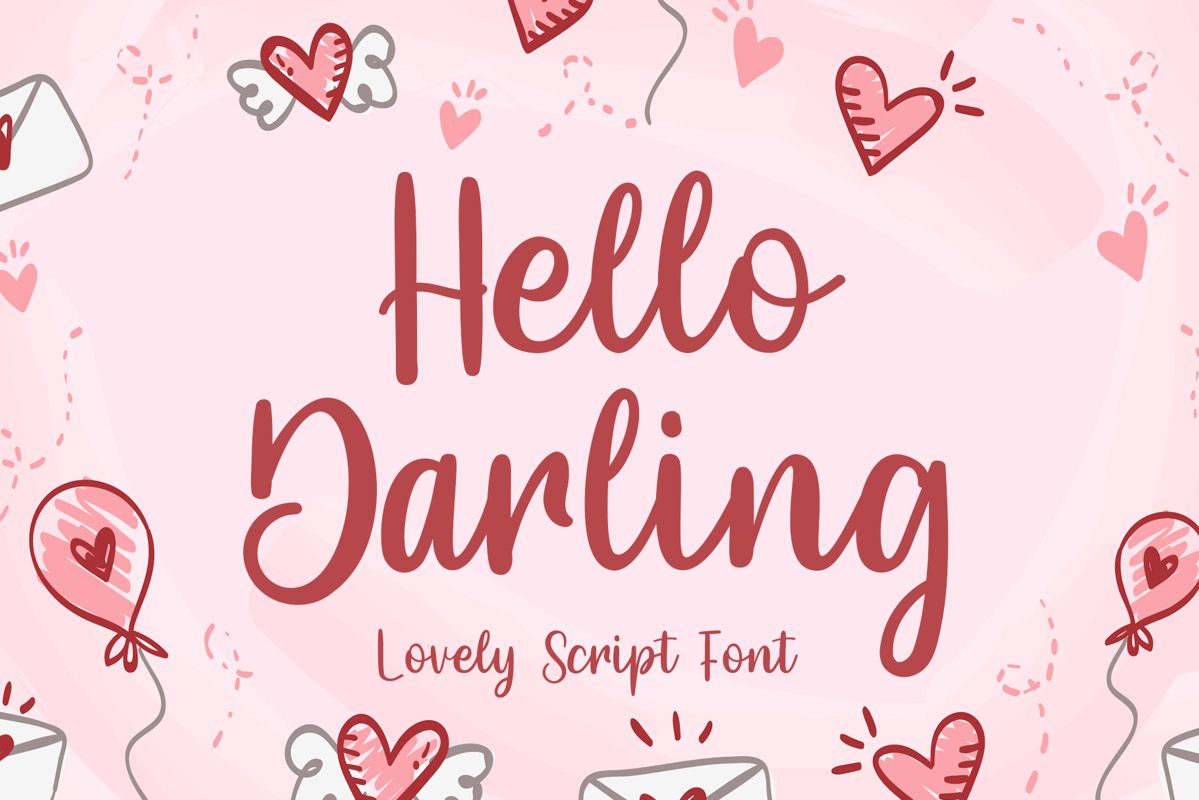
Hello Darling Lovely Script
Hello Darling
Hello Darling is a modern beautiful typeface. It’s perfect for feminine, elegant, and luxurious designs. It has a fresh and modern look that can be used for greeting cards, branding materials, quotes, posters, and much more.